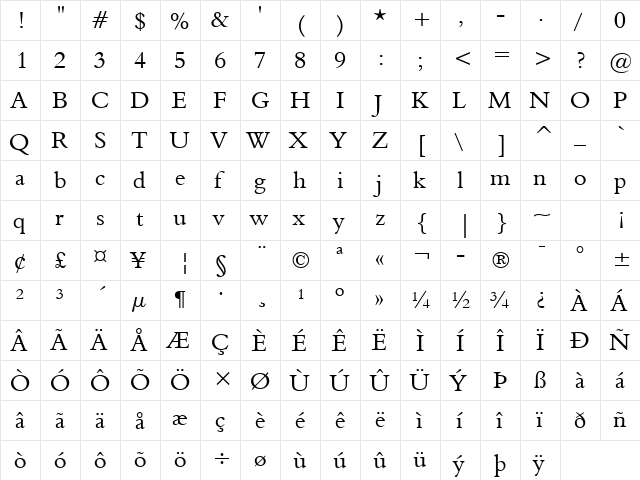
Aldine401 BT Roman
Design Context for Aldine401 BT Typeface
Aldine401 BT takes a measured approach to typography — its balanced proportions and neutral character make it a reliable workhorse for both digital and print work.